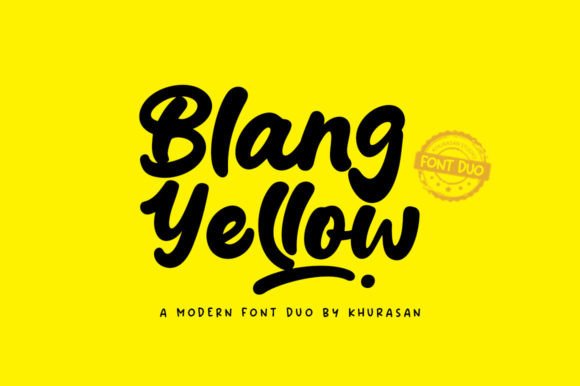
The Blang Yellow Duo Font: A Fun and Creative Companion for Designers
Have you ever been in the middle of a design project, and suddenly, you’re stuck on finding the perfect font? I recall a recent experience where I was working on a vibrant poster for a local event, and my usual go-to fonts just weren’t cutting it. That’s when I stumbled upon the Blang Yellow Duo Font, a delightful handwritten font duo that includes both a script and a display font. It was love at first sight! 💕
An Honest Review of Blang Yellow Duo Font
- ✅ Versatility: This font duo is incredibly versatile, making it perfect for a wide range of projects, from posters and logos to magazines, book covers, and banners.
- ✅ Unique Character: The Blang Yellow fonts have a distinct, handcrafted feel that adds a personal touch to any design.
- ✅ Ease of Use: The fonts are easy to work with, even for those who are new to using OpenType features and glyphs.
- ✅ Excellent for Branding: The script and display fonts complement each other beautifully, making them ideal for creating a cohesive brand identity.
While the Blang Yellow Duo Font is fantastic, there are a few minor considerations to keep in mind:
- 🤔 Legibility at Small Sizes: Like many script fonts, it may lose some legibility when used at very small sizes. It’s best used at larger sizes where its details can shine.
- ⚠️ Limited Formality: Given its playful nature, this font might not be the best choice for very formal or corporate projects.
The Backstory of Blang Yellow Duo Font
The Blang Yellow Duo Font was created with the intention of bringing a splash of fun and creativity to the world of typography. Inspired by the beauty of handwritten texts and the uniqueness of individual lettering, this font duo aims to make designs stand out. Whether it’s for a personal project or a client’s request, Blang Yellow is designed to inspire creativity and add a personal touch.
Q: Does the Blang Yellow Duo Font include both a script and a display font?
A: Yes, the Blang Yellow Duo Font comes with both a beautiful script font and a bold display font, offering versatility for various design needs.